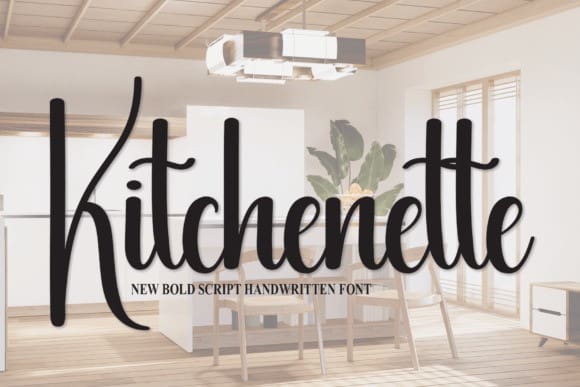
Kitchenette Script Font
Kitchenette Script Font, is a flowing handwritten font, described by an elegant touch, perfect for your favorite projects. Fall in love with its incredibly distinct and timeless style and use it to create spectacular designs!